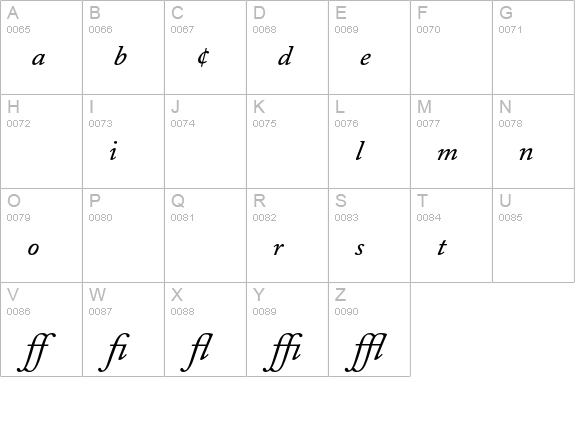
Adobe Caslon Italic Expert Font Details
Adobe Caslon Italic Expert is a distinctive, italic variant in the Adobe typeface family \xE2\x80\x94 well suited to design and typography projects.
The Adobe Caslon Italic Expert font exudes elegance and sophistication with its graceful curves and refined letterforms. Its timeless design makes it a versatile choice for a wide range of projects, from elegant invitations to classic book layouts. The italic style adds a touch of flair and sophistication, perfect for adding emphasis or creating a sense of movement in your designs. This expertly crafted typeface is a true classic, embodying the rich history and tradition of the Caslon type family. Its expertly designed italic variant offers a unique twist on the traditional Caslon style, making it a standout choice for designers looking to add a touch of sophistication to their projects. And the best part? This exquisite Adobe Caslon Italic Expert font is available for free download at FontsMarket.com. Now you can elevate your designs with this timeless typeface without breaking the bank. Don't miss out on the opportunity to enhance your projects with the beauty and elegance of Adobe Caslon Italic Expert font, available for free at FontsMarket.com.